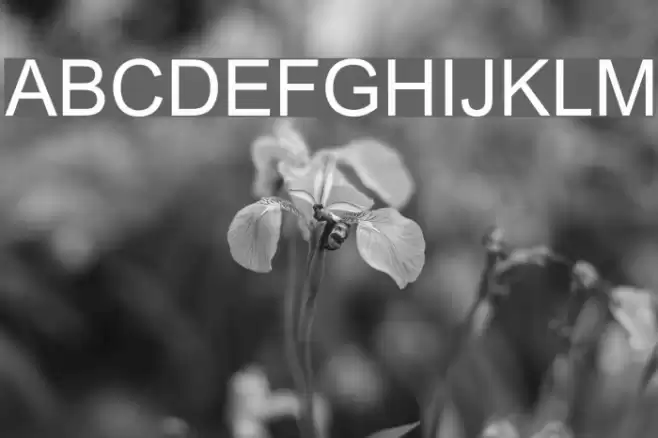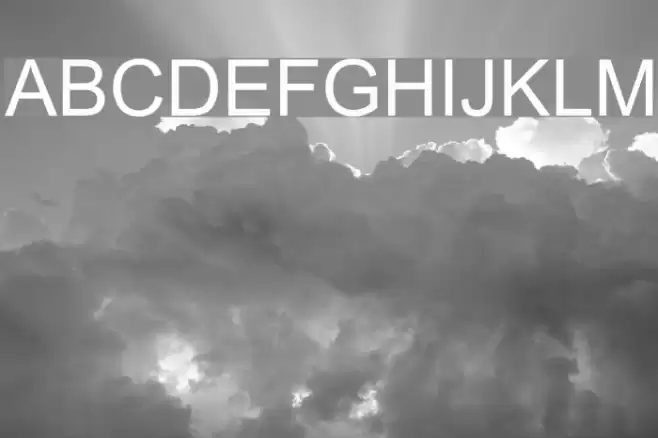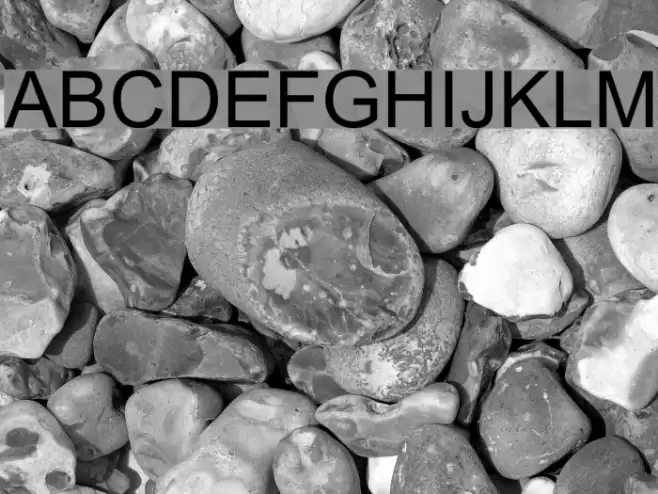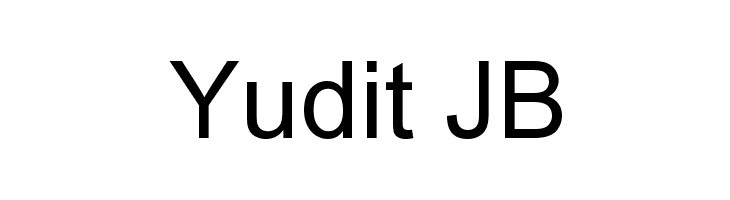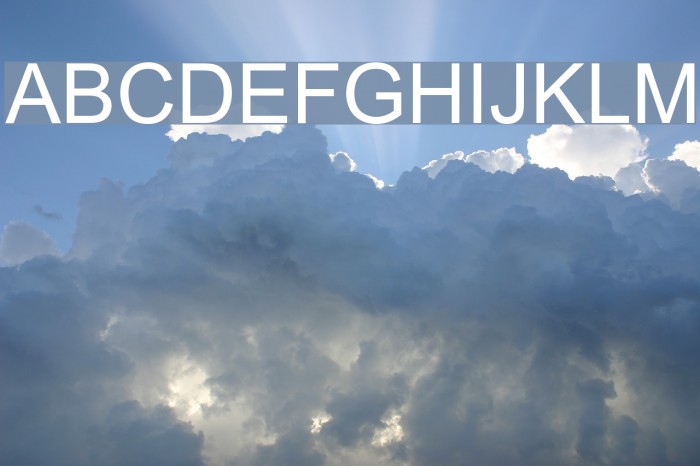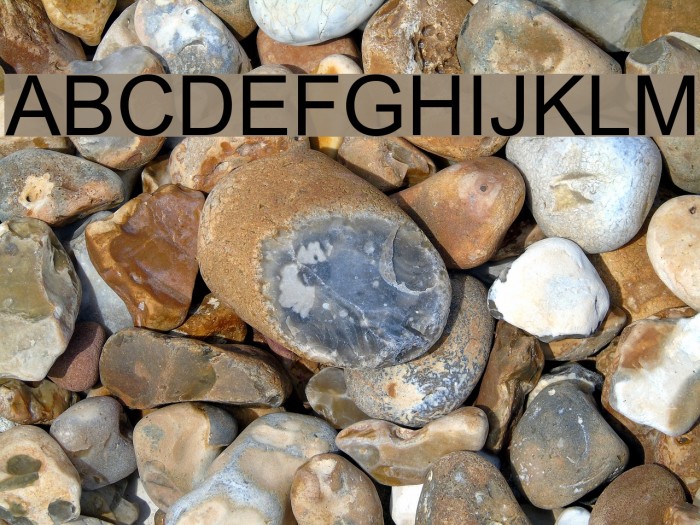
Yudit JB Font
Yudit JB Description
This font features a clean and modern sans-serif design, characterized by its simplicity and clarity. The letters are evenly spaced with a consistent stroke width, providing a balanced and harmonious appearance. The uppercase letters are bold and assertive, while the lowercase letters maintain a friendly and approachable look. The numerals are clear and legible, making them suitable for various applications. The special characters are well-integrated, maintaining the overall aesthetic of the font. This typeface is versatile, suitable for both digital and print media, and can be used effectively in a wide range of design projects.
A modern, clean sans-serif font with balanced spacing and consistent stroke width from Uncategorized fonts.